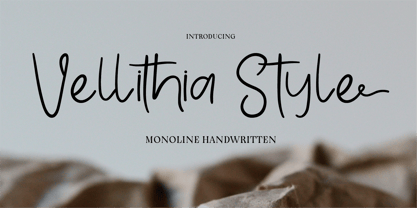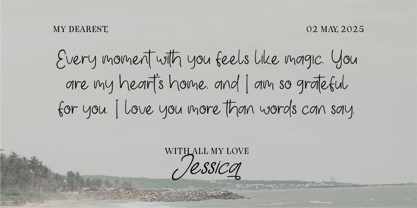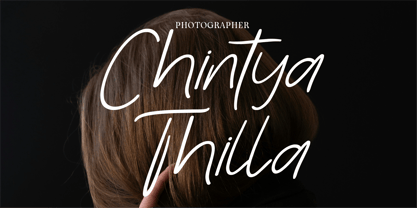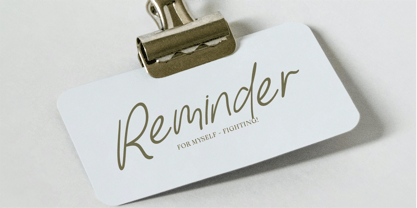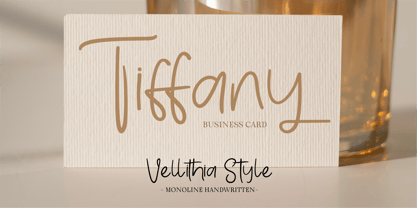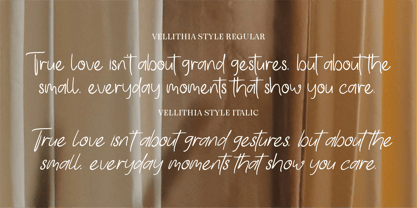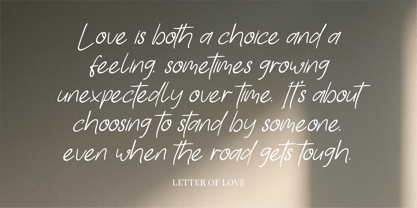
CF Vellithia Style
by Indotype
The CF Vellithia Style Font Family was designed by Gilang Mei Nugraha, Frederik Aristaputra and published by Indotype. CF Vellithia Style contains 2 styles and family package options. More about this family
Vellithia Style is a sophisticated monoline handwritten font designed to bring a touch of natural elegance to your projects. Its clean and flowing strokes make it ideal for logos, branding materials, wedding invitations, and personal signatures. Perfectly blending modern minimalism with a personal charm, Vellithia Style adds warmth and personality to any creative endeavor.
- Standard Character A-Z, a-z, 0-9, Punctuation & symbols
- Regular and Italic
Designers: Gilang Mei Nugraha, Frederik Aristaputra
Foundry: Indotype